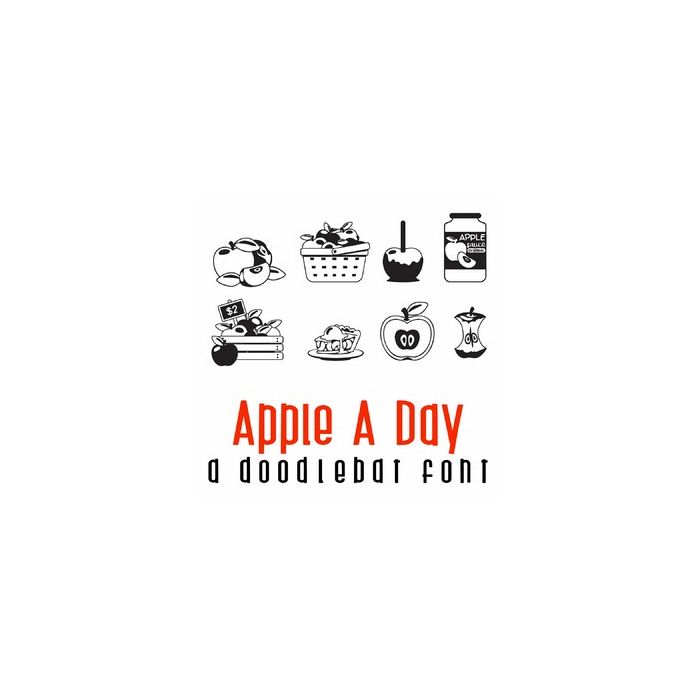
This fun doodlebat features 26 apple images and treats, perfect for fall, cards, crafts, gifts, planner stickers, parties, school, classrooms, scrapbook pages and more!